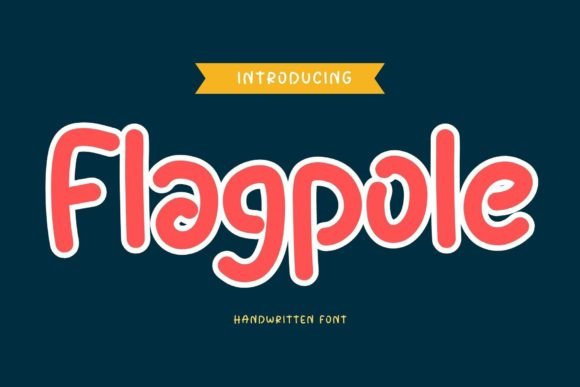
Embark on an extraordinary typographic journey with Flagpole Font, a captivating script creation from Brown Cupple Fonts. This charming handwritten font exudes a playful and authentic spirit, ready to infuse your creative projects with a touch of whimsical delight. Whether you're weaving heartfelt messages in blog posts, crafting logos that speak volumes, building brands that exude personality, or designing eye-catching ads that demand attention, Flagpole Font is your trusted companion.
Immerse yourself in a world of endless possibilities, where Flagpole Font transforms invitations into cherished keepsakes, greeting cards into heartfelt expressions, planners into organized masterpieces, and photo albums into treasured memories. Let your imagination soar as you create decorations that exude charm and sophistication, leaving an everlasting impression on your audience.
With Flagpole Font, the ordinary becomes extraordinary. Its unique letterforms, particularly the striking 'S' with its captivating curves and dynamic flow, add an artistic flair to your designs, making them stand out from the crowd. Unleash your creativity and let Flagpole Font lead you to typographic greatness.